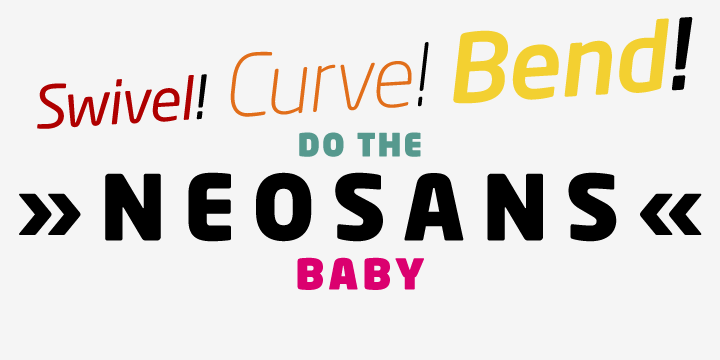
Neo Sans
Neo Sans started out as a fascinating project from a branding organization. The client was looking for an “ultra modern” typeface family. The idea was to get a “futuristic font sans the attention-grabbing or transient feel.” Created by Sebastian Lester, the font is simply fantastic and ultra modern. It is also a carefully drawn, monoline … Read more